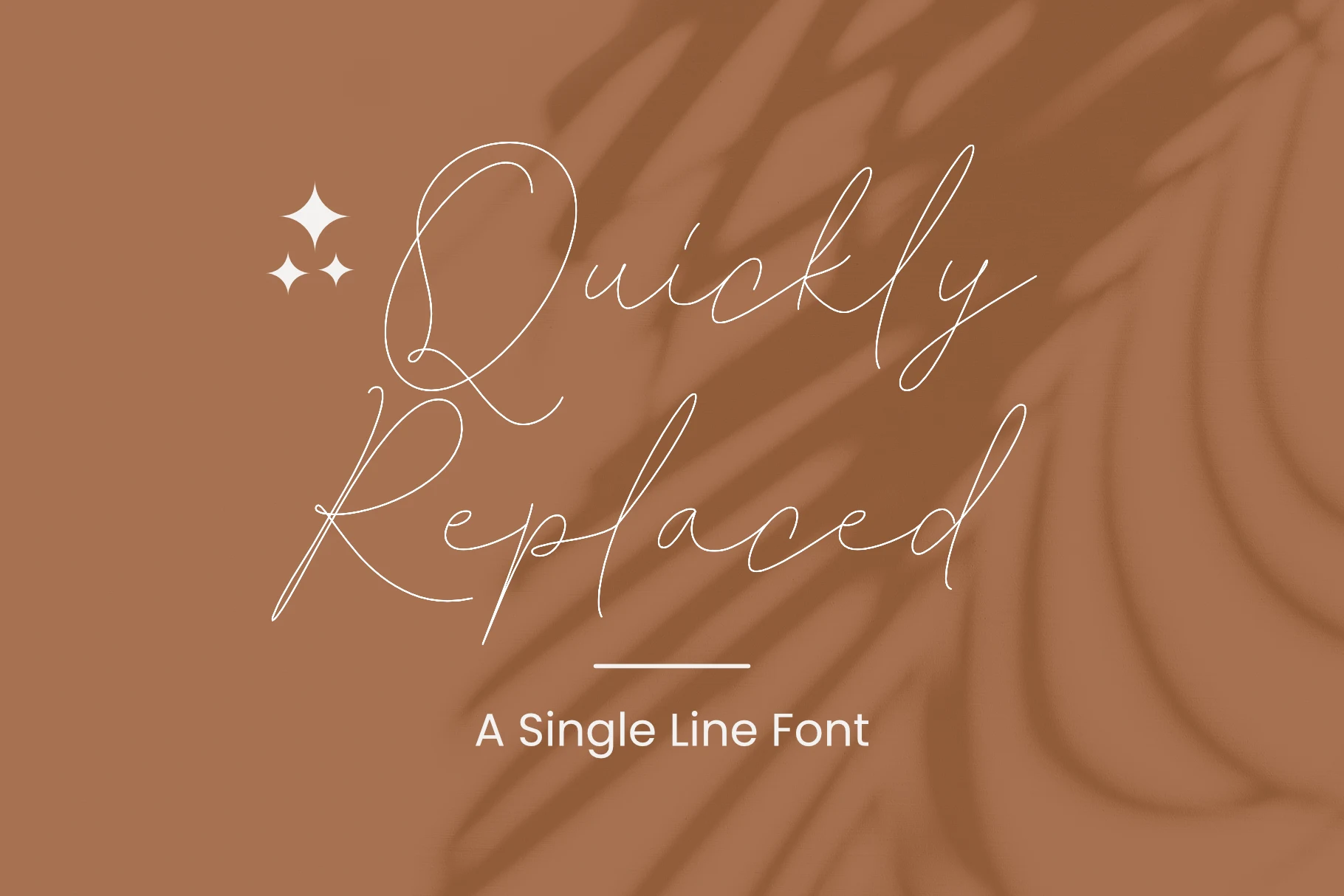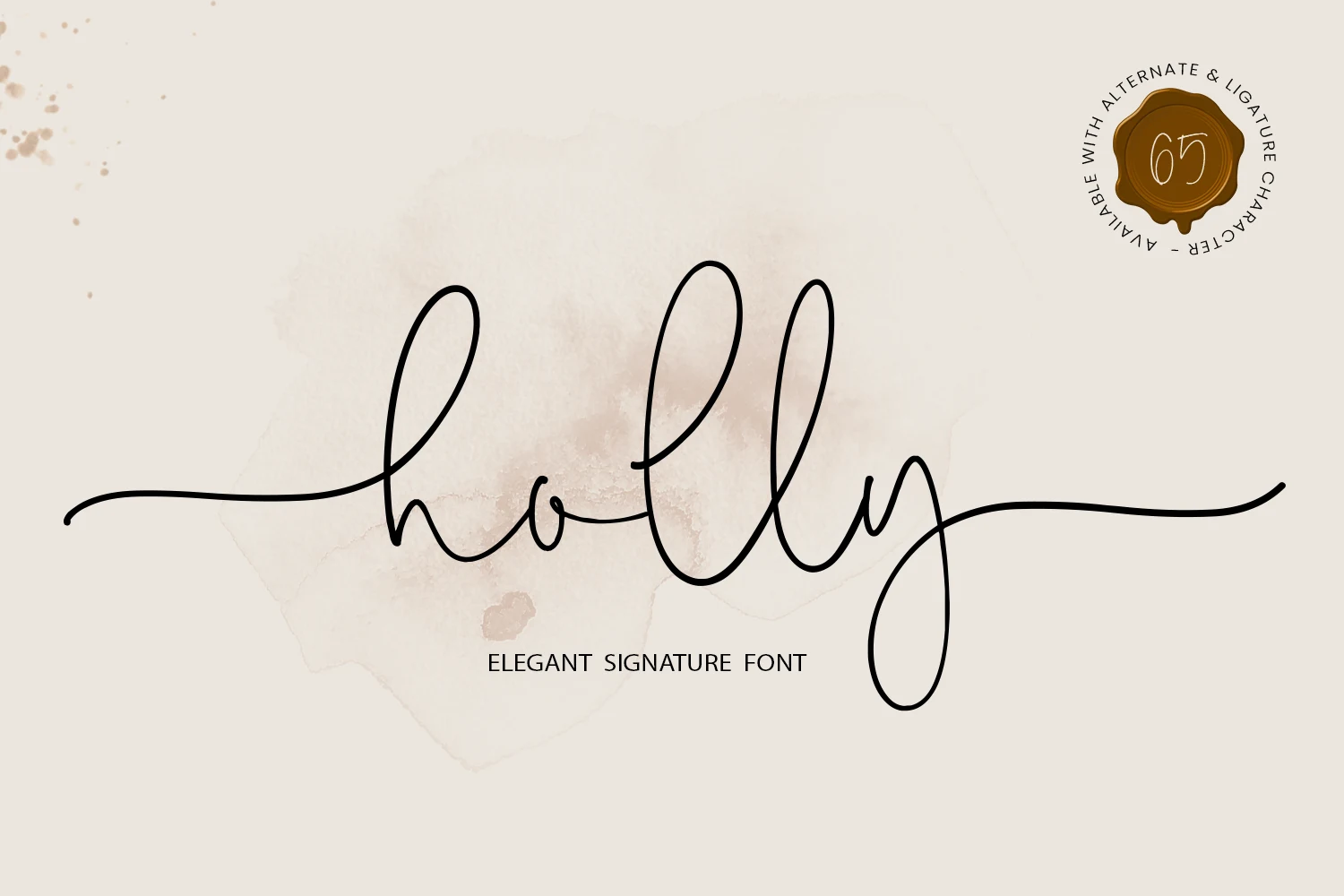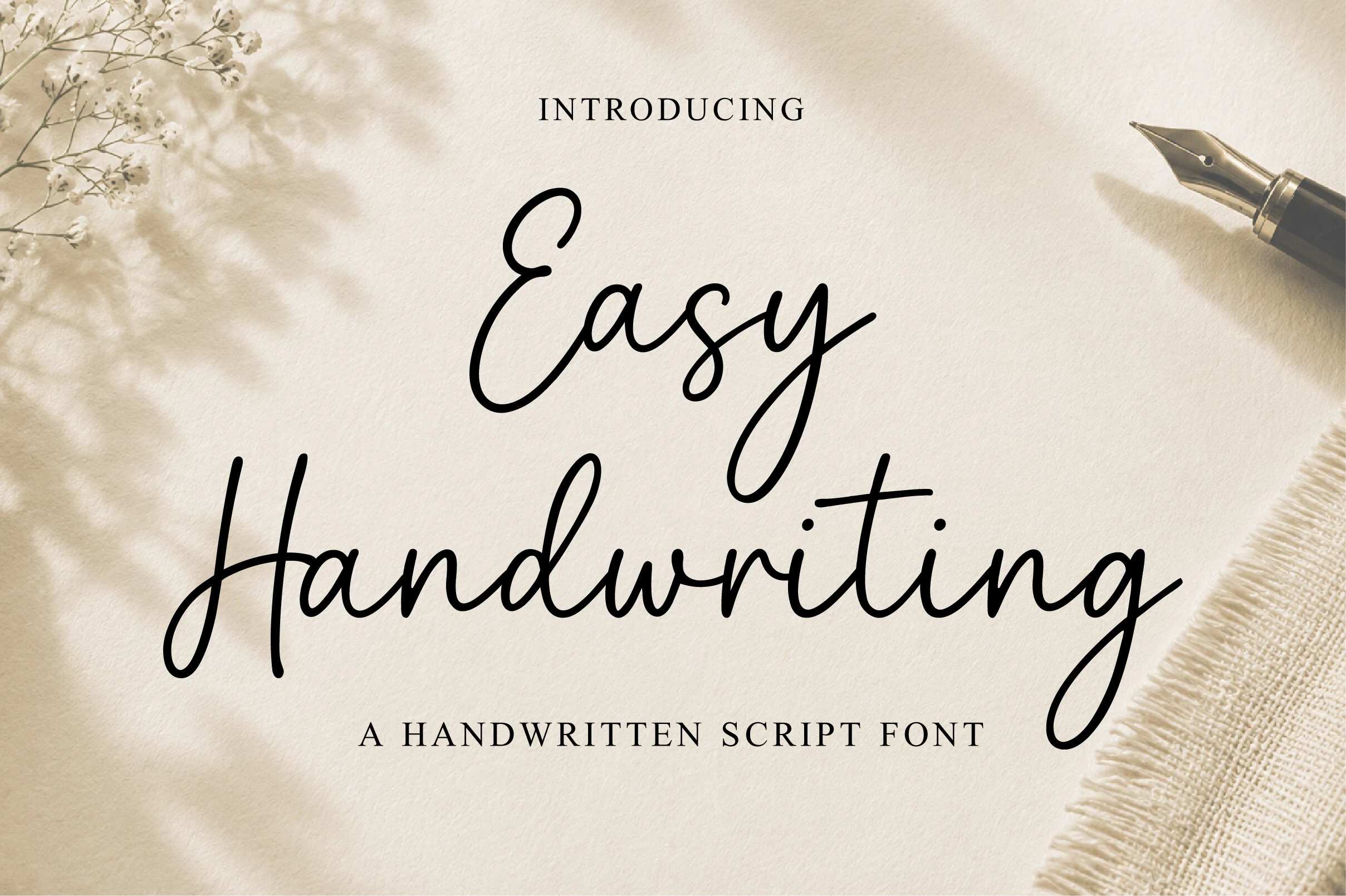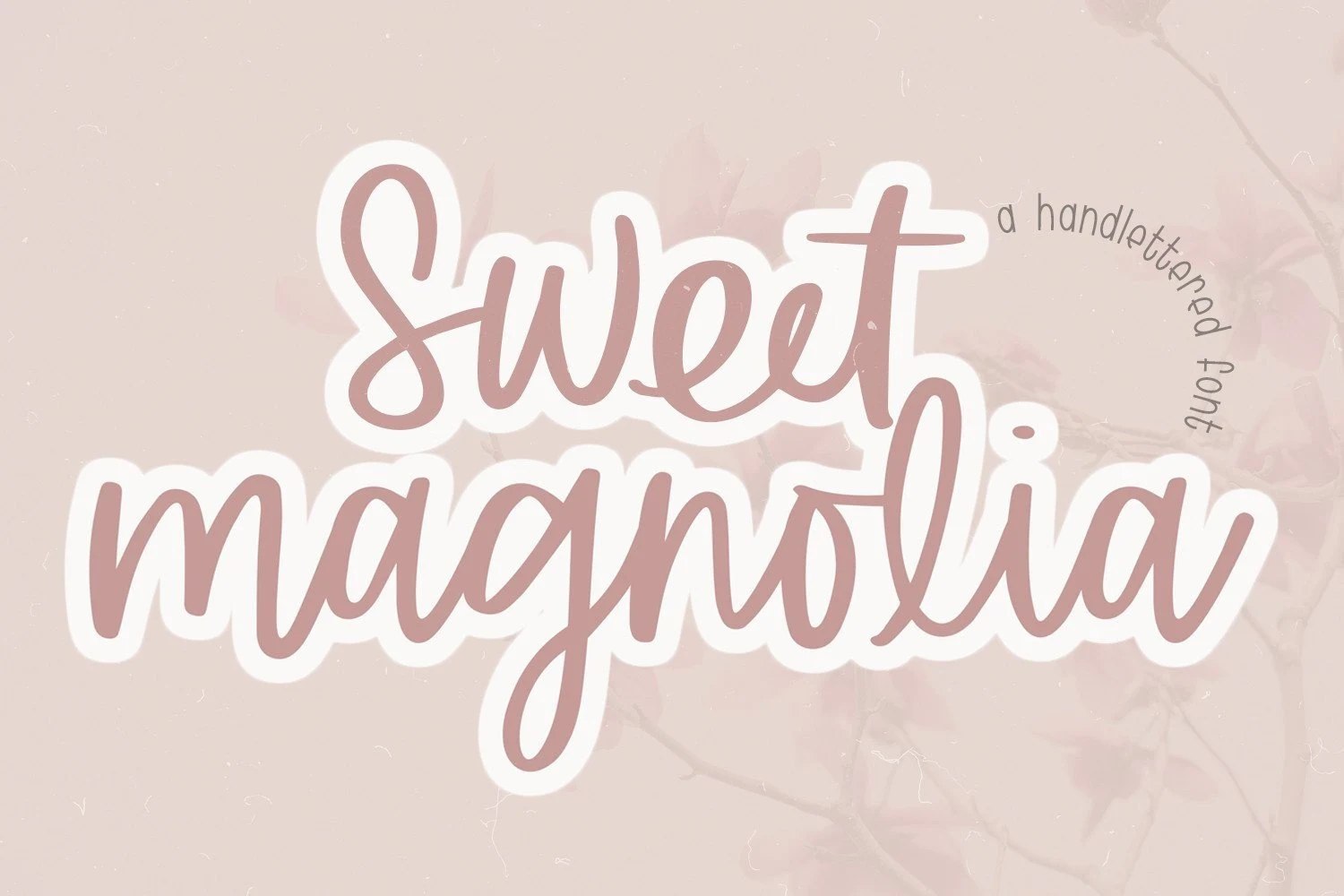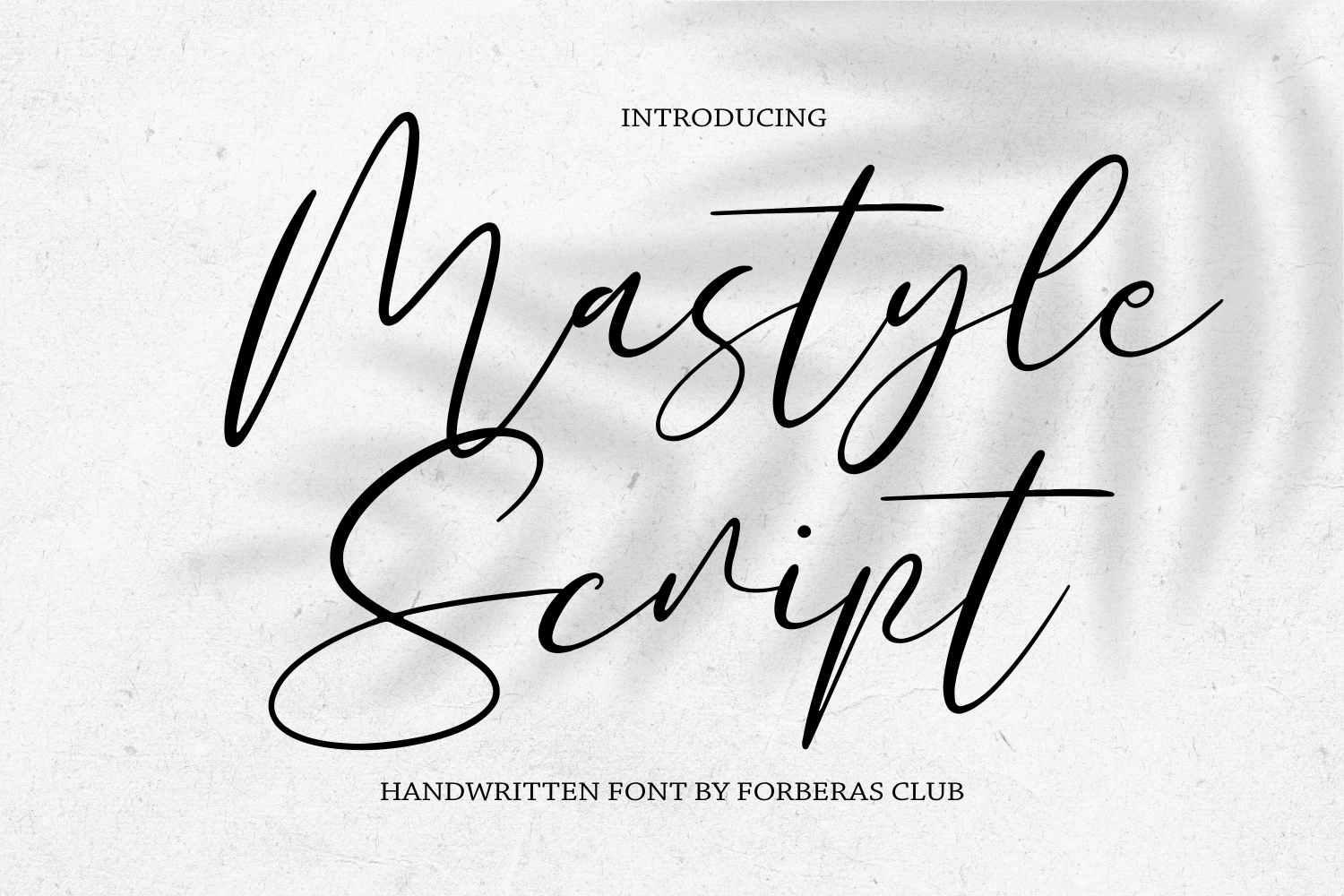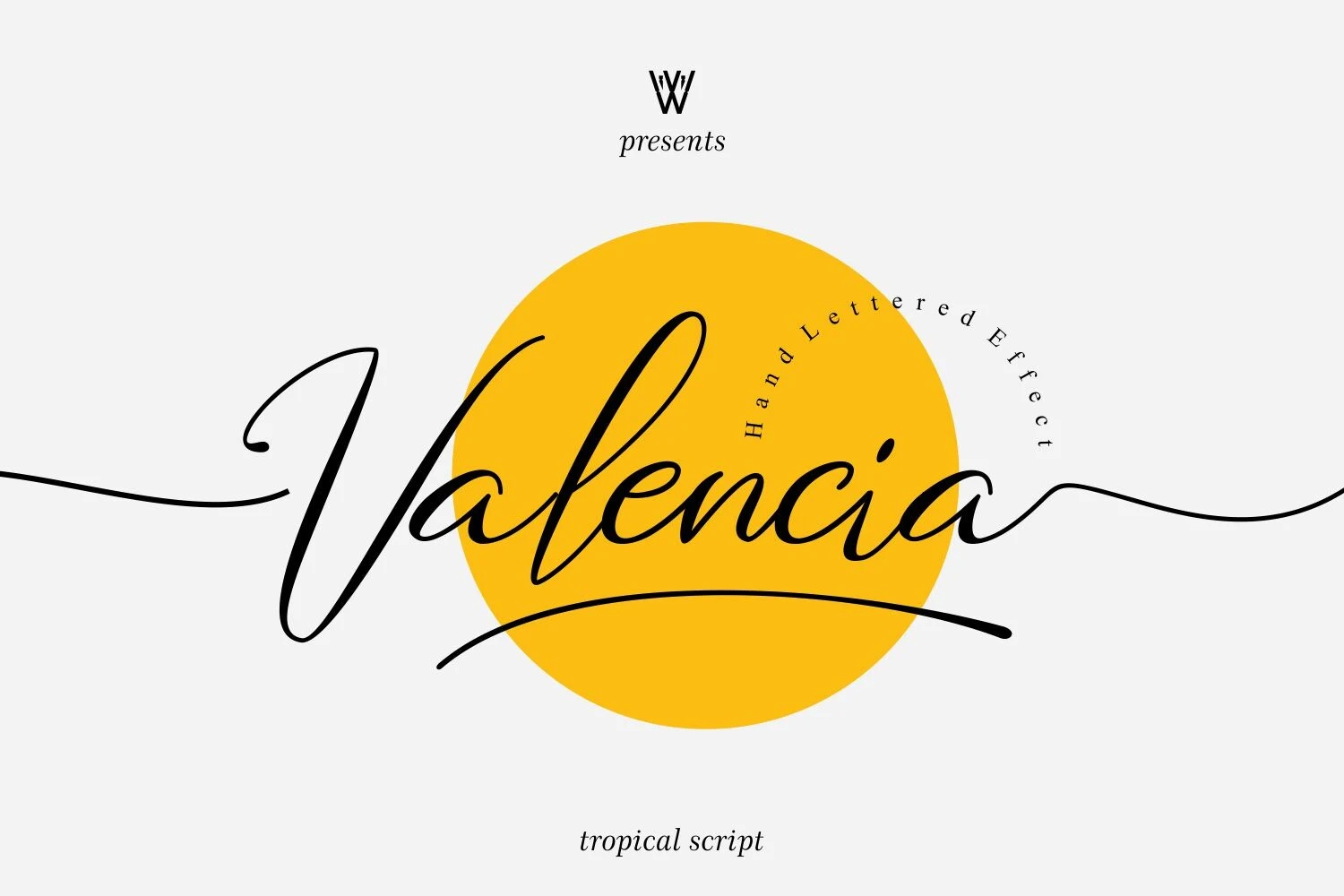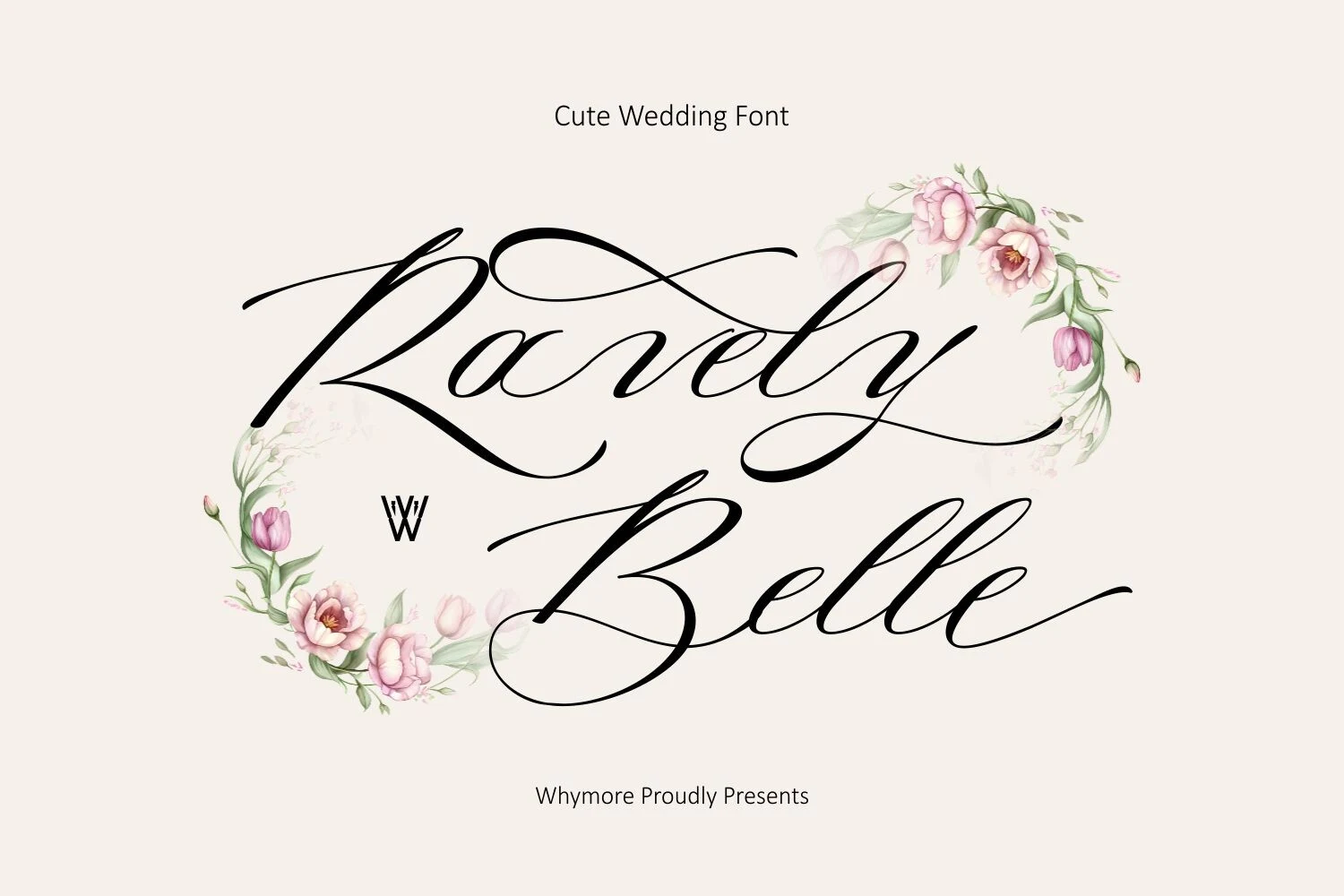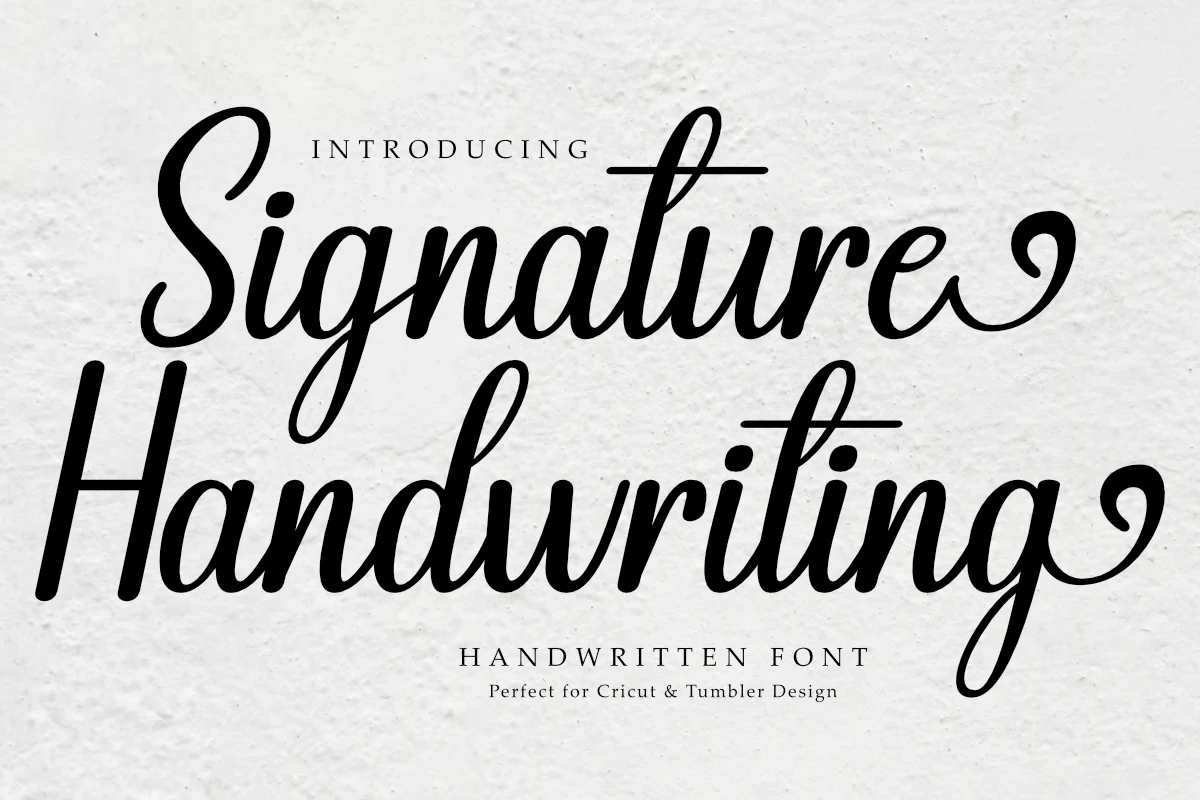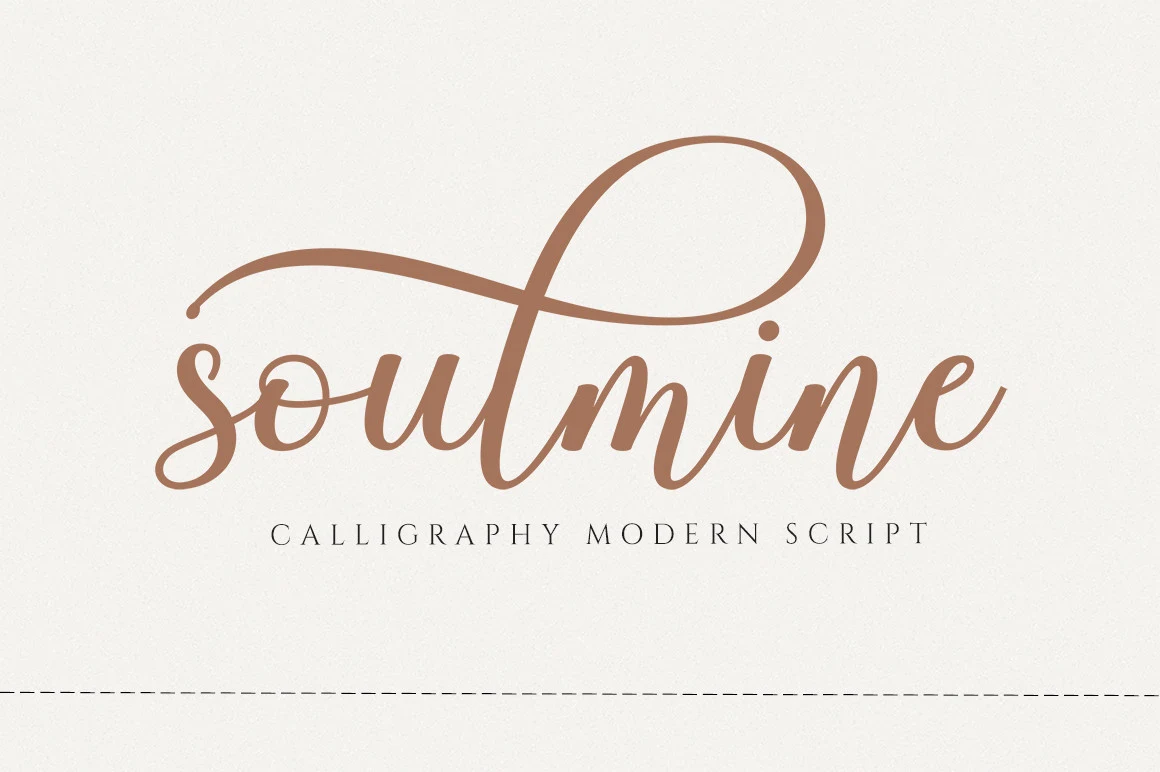
19 Best Calligraphy Fonts for Cricut in 2026
This collection spans light monoline lettering, high-contrast calligraphy, playful handwritten forms, and decorative scripts with swashes or themed details. These Calligraphy Fonts for Cricut suit invitations, stickers, packaging, shirts, logos, and other short display projects, with readability depending heavily on size and construction.
Calligraphy Fonts for Cricut: Clean Connected Scripts
Calligraphy Fonts for Cricut in this group use connected, controlled strokes, usually with low contrast and looping details. They are more readable and practical than heavily flourished display scripts.
Quickly Replaced Font
Quickly Replaced Font uses a thin monoline stroke with connected letters and looping ascenders and descenders. Its continuous, calligraphy-inspired curves suit packaging, branding, and short social graphics, but delicate terminals need generous display sizing for reliable Cricut clarity.
Holly Font
Large invitations and display phrases are where Holly Font performs best. Its light monoline stroke follows a stable continuous baseline, with loopy ascenders and descenders adding movement. Very small Cricut cuts may lose those thin details, so scale matters.
Easy Handwriting Font
Easy Handwriting Font is one of the more controlled connected options, with clean monoline joins, regular proportions, rounded terminals, and a slight rightward slant. Uppercase, lowercase, numbers, and punctuation extend its usefulness across branding, packaging, logos, and invitations.
Sweet Magnolia Font
Sweet Magnolia Font combines upright monoline lettering with a thick white outline, making it unusually readable among decorative connected designs. The outline helps large stickers, T-shirts, and signage hold together, though short display lines remain its strongest Cricut use.
Mastyle Script Font
Mastyle Script Font frames regular right-slanting monoline letters with prominent entry and exit flourishes. That structure works especially well for logos, branding, headlines, and short phrases, while ornate ends reduce readability in longer names or sentences.
Flourished High-Contrast Scripts
These scripts rely on pronounced thick-thin contrast, slant, loops, and extended swashes. Their formal calligraphic structure creates impact, but the ornament makes them less suitable for dense or tiny wording.
Valencia Font
Valencia Font has the clearest formal calligraphic structure here: strong thick-thin contrast, a pronounced rightward slant, and long entrance and exit swashes. Those extended flourishes make it a display-focused choice for invitations, logos, and other short Cricut compositions.
Ravely Belle Font
Ravely Belle Font uses pointed-pen-like thick-thin variation, pronounced loops, and extended swashes to create an ornamental calligraphic identity. The complex joins suit wedding designs, invitations, branding, and logos, but large display sizing is preferable to continuous reading text.
Signature Handwriting Font
For medium-to-large quotes, stickers, and tumbler designs, Signature Handwriting Font combines variable high-contrast strokes with sweeping terminals and pronounced loops. Balanced spacing supports readability, but its decorative swashes make dense wording harder to scan and cut cleanly.
Soulmine Font
Soulmine Font builds a strongly vertical silhouette from modern calligraphic contrast, elongated ascenders, and connected flourishes. It can carry invitation headers, posters, business-card names, and logos effectively, while extended passages become difficult to scan because of the ornament.
Winterland Font
Winterland Font combines bold upright lettering with high contrast and distinctive swashes on the initial W and terminal d. The heavier body helps headlines, logos, and branding hold attention, but connected transitions still call for display sizing.
Playful Handwritten Cricut Scripts
Rounded terminals, irregular baselines, and casual spacing give this group a lighter, more approachable rhythm. They feel less formal than connected calligraphy and work best for short craft messages.
Sunday Letters Font
Sunday Letters Font takes a playful route with disconnected rounded letters and a deliberately bouncy baseline. The irregular rhythm separates it from joined scripts, while its larger-size clarity makes it useful for invitations, display text, and short Cricut phrases rather than compact wording.
Lovingly Yours Font
Lovingly Yours Font combines moderate stroke variation, rounded terminals, and connected lettering for a less formal handwritten cadence. Its smooth strokes fit invitation headings, personalized crafts, and short phrases, though stylized joins limit its usefulness for longer Cricut wording.